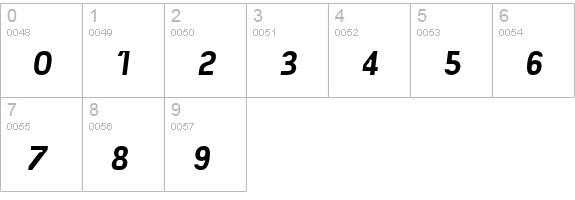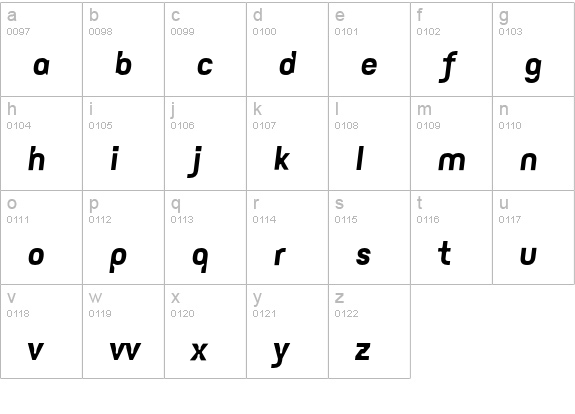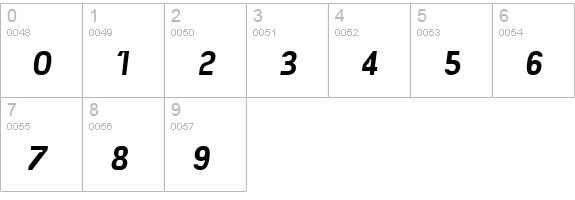
Eunuverse-BoldItalic Font Details
Eunuverse-BoldItalic is a striking and versatile typeface that combines boldness with elegance. Its italicized style adds a dynamic and modern touch to any design project. This font is perfect for creating eye-catching headlines, logos, posters, and more. With its unique personality and strong presence, Eunuverse-BoldItalic is sure to make a statement. The best part? Eunuverse-BoldItalic is available for free download at FontsMarket.com. Simply visit the website to access this stylish font and elevate your designs with its bold and italicized charm. Don't miss out on this opportunity to enhance your creative projects with Eunuverse-BoldItalic - the perfect blend of strength and sophistication.